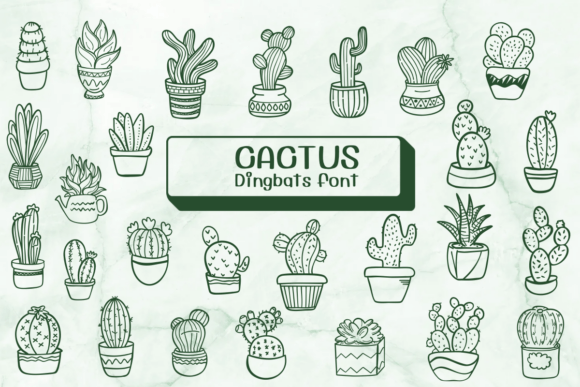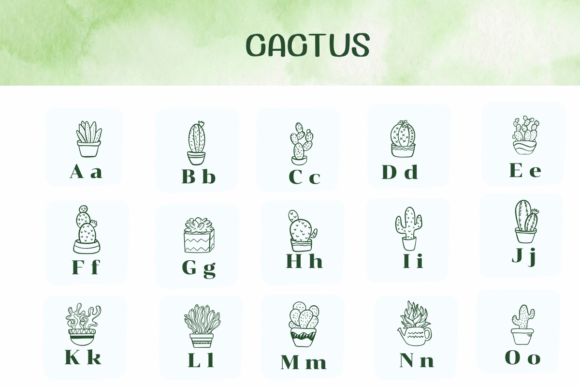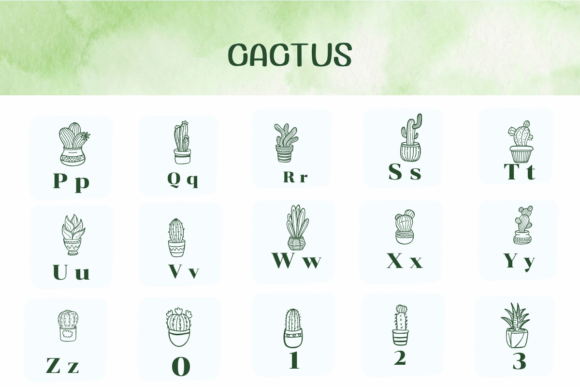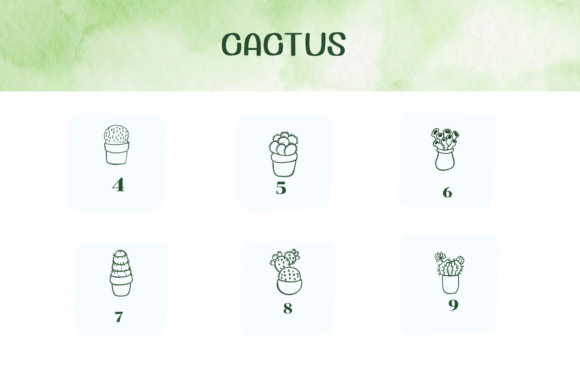
Cactus Font
About the Cactus Font
Meet Cactus Font, a stunning font that brings a touch of elegance and professionalism to any design. Cactus is a dingbats font with a natural sketch style. This font can enhance your creative projects such as wedding invitations, DIY, crafts, decorations, logos, and many other creative ideas.
Cactus is ideally suited for headlines, short text blocks, and logos where its sketched, informal quality adds visual interest. It works exceptionally well in branding for handmade goods, craft businesses, or projects with a rustic, natural aesthetic. Avoid using Cactus for body text or lengthy paragraphs; its informal style is not legible at smaller sizes or in extended passages.
For optimal pairings, consider pairing Cactus with a clean sans-serif like Open Sans for a balanced contrast, or a more playful script font like Pacifico to enhance its organic feel. Geometric sans-serifs might also work well for a modern twist, creating a nice juxtaposition of organic and geometric forms.
The overall personality of Cactus is friendly, approachable, and slightly whimsical. Its sketched style conveys a sense of hand-crafted authenticity, making it unsuitable for projects requiring a formal or serious tone.